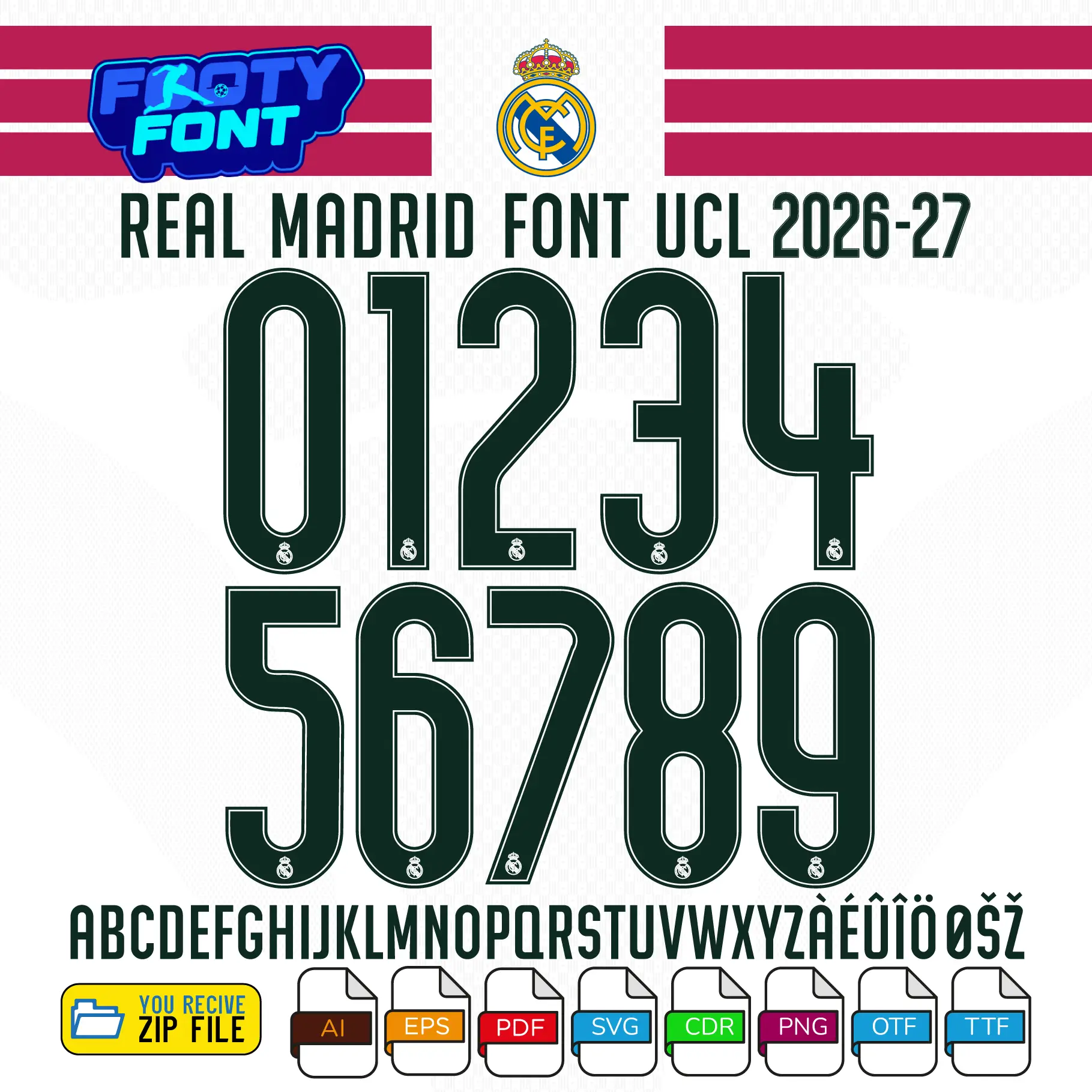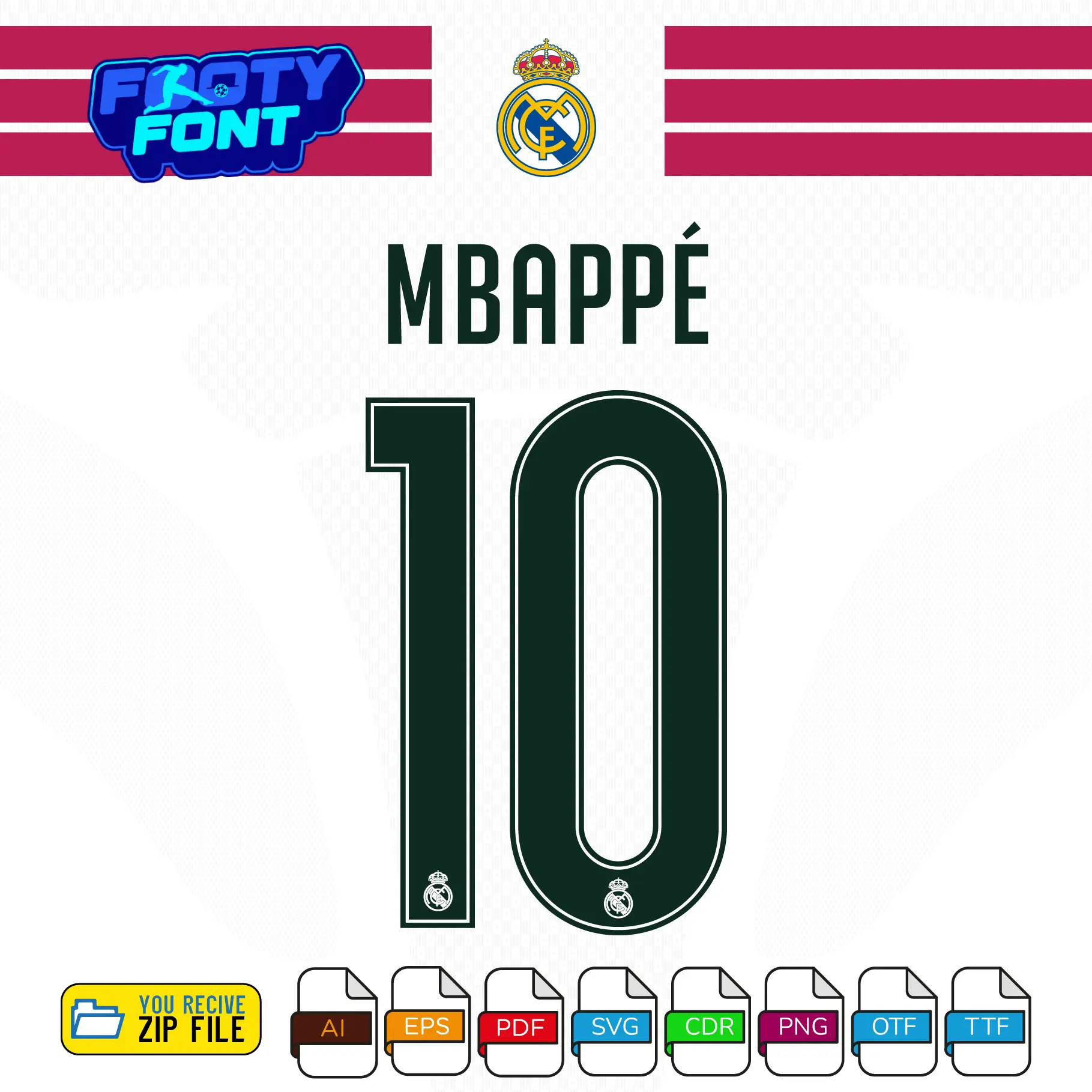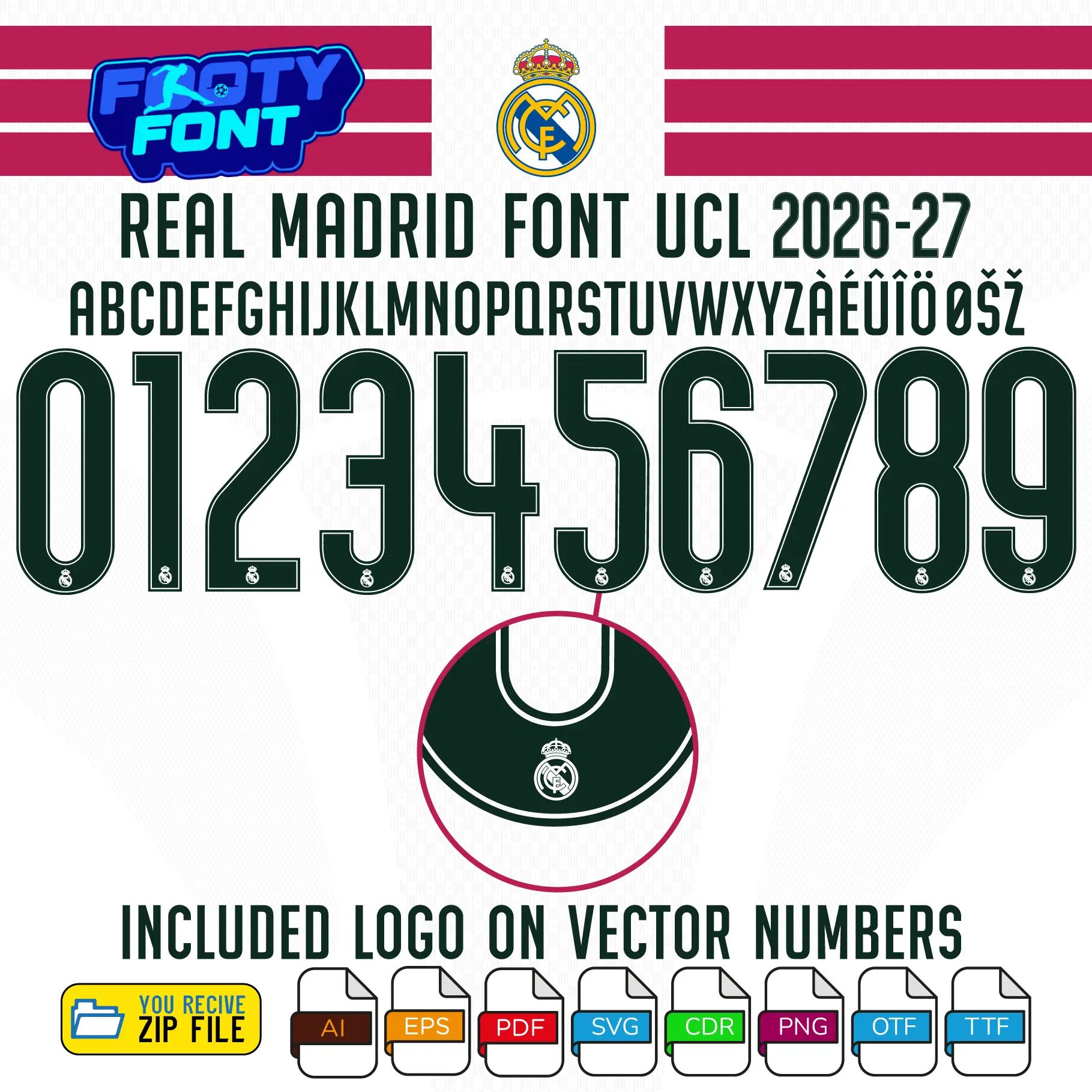
Real Madrid 2026-27 Football Font
Bring the legendary Los Blancos magic to your designs with this font football, inspired by the Real Madrid 2026/27 UEFA Champions League kit. It recreates the modern lettering worn on Europe’s biggest nights: deep dark green numbers with a precise white inner line that matches the elegant white home jersey.
It captures the style worn by stars like Kylian Mbappé, Jude Bellingham and Vinícius Júnior – perfect for custom jersey namesets, matchday posters, streetwear and social media graphics.